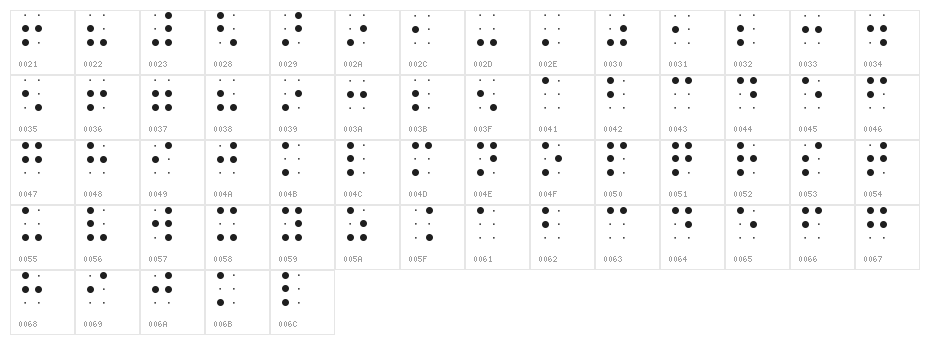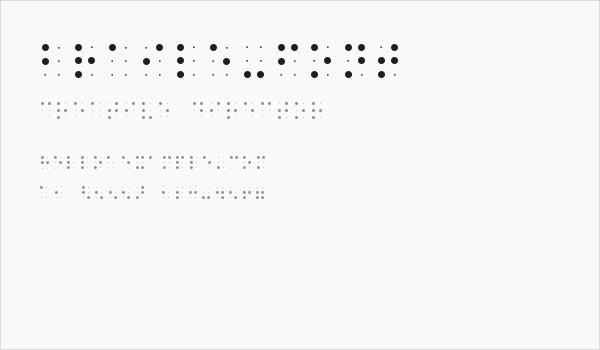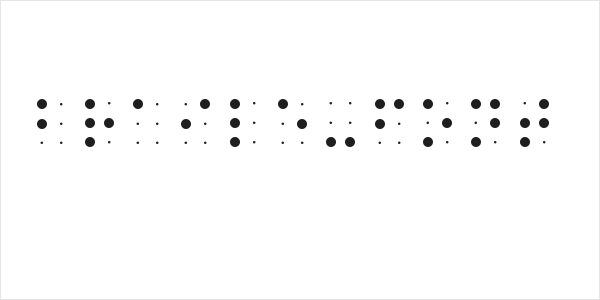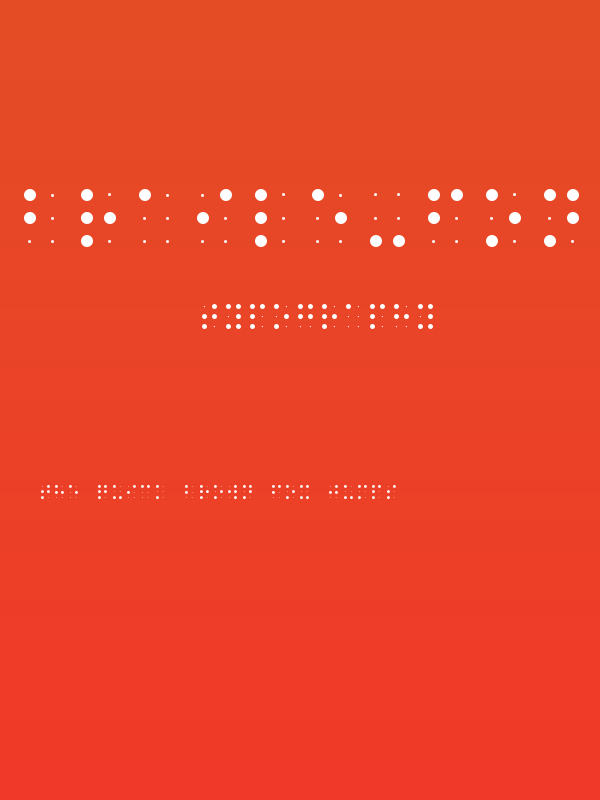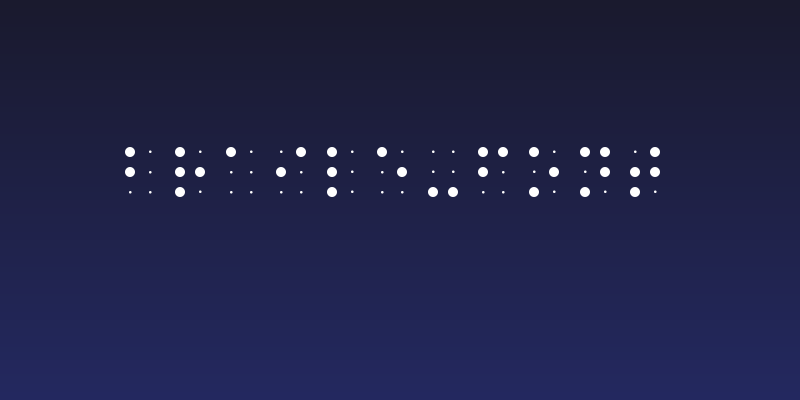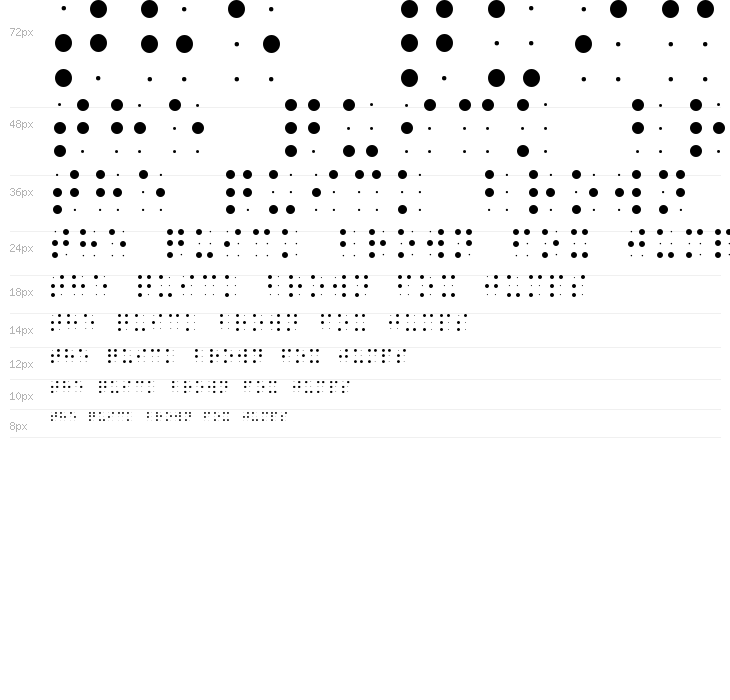
This is a Braille representation, a tactile writing system used by people who are visually impaired. It consists of patterns of raised dots arranged in a grid, where each cell represents a letter, numeral, or punctuation mark. The system is designed to be read by touch, with each character formed by a combination of up to six dots. This format is not a traditional visual font but rather a tactile one, emphasizing accessibility and inclusivity for those with visual impairments.
| Overall Style | Functional |
| Use Case | Accessibility, Educational materials |
| Proposed Projects | Ideal for creating accessible materials, educational tools for the visually impaired, and inclusive design projects. |